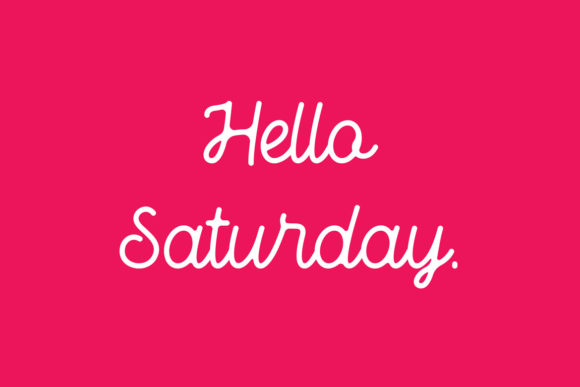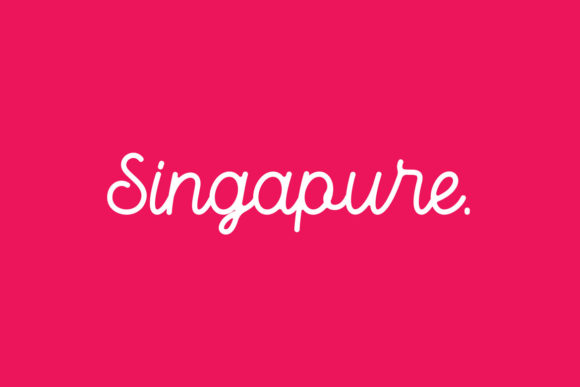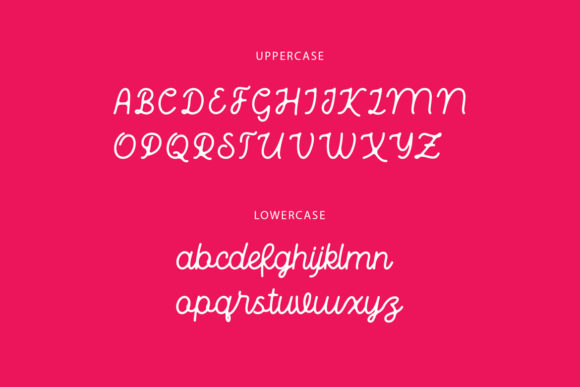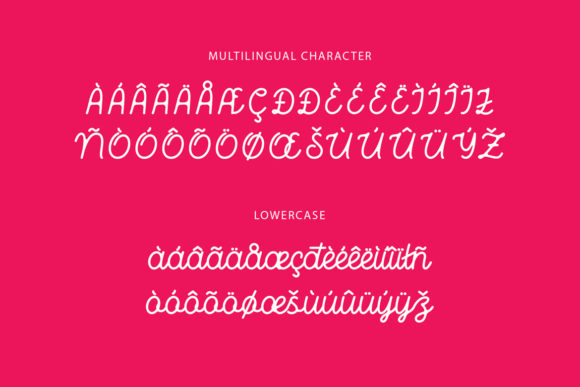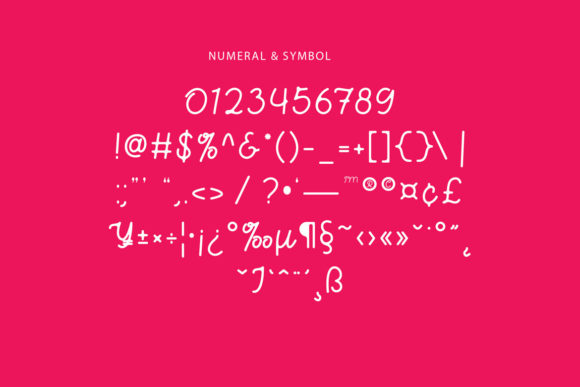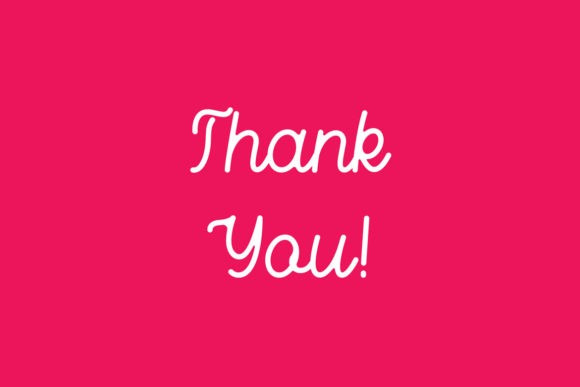
Bhamious Font
About Bhamious Font
Bhamious is a gorgeous monoline script font. It has an elegant and classy style that will make your designs standout. It will elevate a wide range of design projects to the highest level, be it branding, headings, wedding designs, invitations, signatures, logos, labels, and much more!